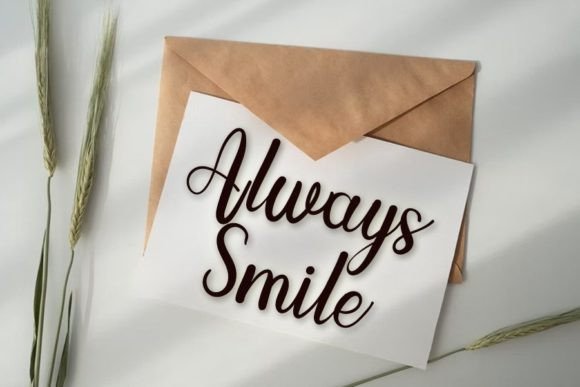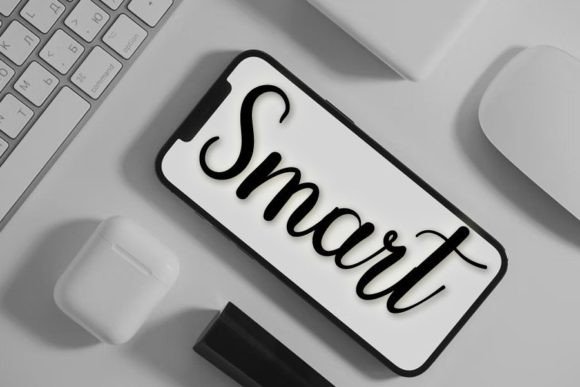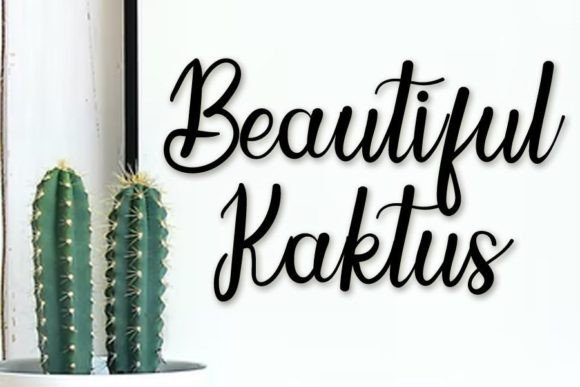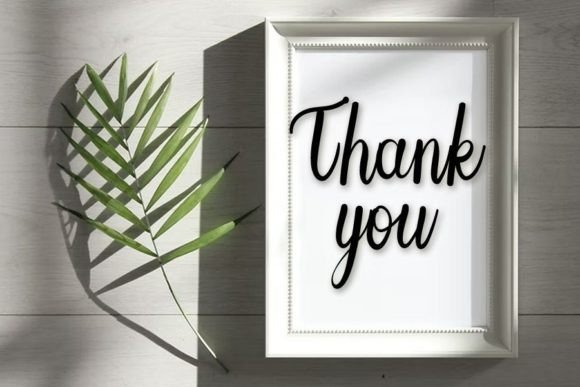
Within Font
About Within Font
“Within: Where Freshness Meets Elegance in Typography
Meet Within, a font that effortlessly combines freshness and beauty, breathing life into your design projects. This font is not just a collection of letters; it’s a creative canvas that adds a touch of sophistication to your work. Whether you’re crafting YouTube banners, cover logo mockups, wedding invitations, ID cards, flyers, or intricate crafts, Within enhances your designs with its unique charm and elegance.
Within is the epitome of versatility, making it an ideal choice for a wide range of design purposes. Its contemporary aesthetic lends a modern flair to digital creations like YouTube banners and cover logo mockups. Simultaneously, its timeless elegance graces tangible items such as wedding invitations and ID cards, setting the stage for memorable experiences. No matter the context, Within transforms ordinary designs into captivating visual narratives.
Imagine your YouTube banner adorned with Within’s stylish letterforms, drawing viewers in with its fresh and inviting typography. Envision your wedding invitations showcasing the simplicity and uniqueness of Within, leaving a lasting impression on your guests. With Within, your designs become immersive, telling stories that resonate with your audience.
One of Within’s most significant assets lies in its ability to elevate your business endeavors. Incorporating this font into your branding materials imparts a sense of freshness and sophistication to your business identity. Within’s simplicity and uniqueness create a memorable brand image, attracting attention and fostering growth. It goes beyond being just a font; it becomes the voice of your brand, speaking volumes about your professionalism and creativity.
Within’s simplicity is a testament to its strength. Its clean lines and modern design ensure readability, ensuring your message is conveyed with clarity and impact. Whether you’re designing digital content or tangible marketing materials, Within’s simplicity ensures your audience engages with your message effortlessly.
Furthermore, Within is not just a font; it embodies the essence of progress and development. By integrating this font into your designs, you’re not just creating visuals; you’re crafting a vision for the future. Within becomes a partner in your business journey, propelling you toward success and excellence.
In a world filled with design options, Within stands out as a beacon of creativity and freshness. It’s more than just a font; it’s the key to unlocking the full potential of your projects. Whether you’re a seasoned designer or an entrepreneur starting a new venture, Within empowers you to create designs that leave a lasting impression.
So, why settle for the ordinary when you can embrace the extraordinary with Within? Elevate your designs, captivate your audience, and watch your business progress and develop with the freshness and uniqueness of Within. Let your creativity flow, and let Within transform your designs into captivating masterpieces that leave a mark on the world.”